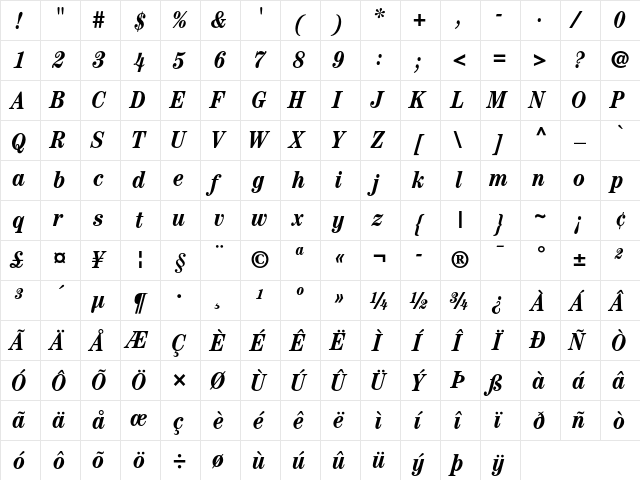
ITC Century Bold Condensed Italic Font Preview
Design Context for ITC Century Typeface
ITC Century is a composed and adaptable typeface that performs quietly and consistently across a wide range of design contexts. The slanted form adds forward momentum and visual energy. The heavy weight commands attention and anchors typographic hierarchies. The condensed width makes it efficient for tight spaces without sacrificing legibility.
Pro Tip: Try ITC Century for annotation and caption copy alongside an upright companion — the contrast in angle creates a dynamic but ordered typographic system.